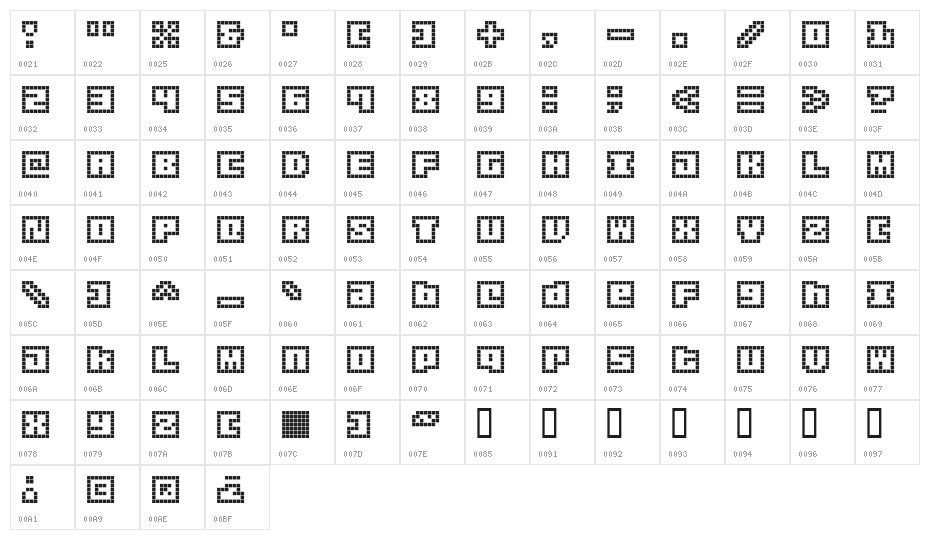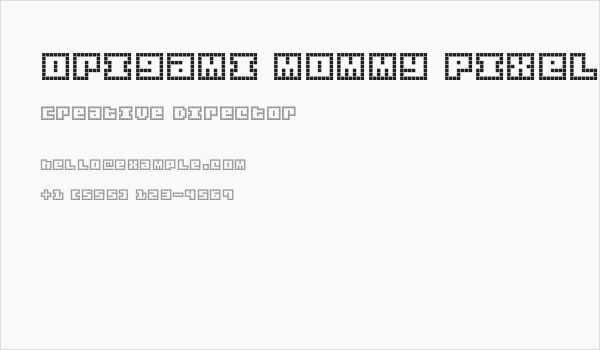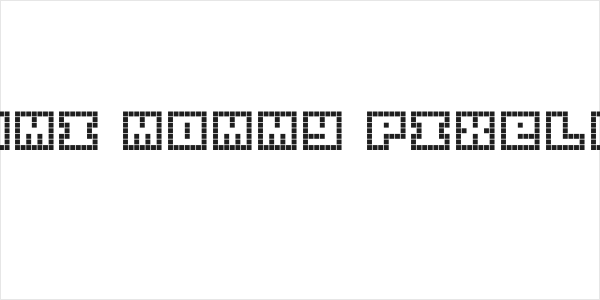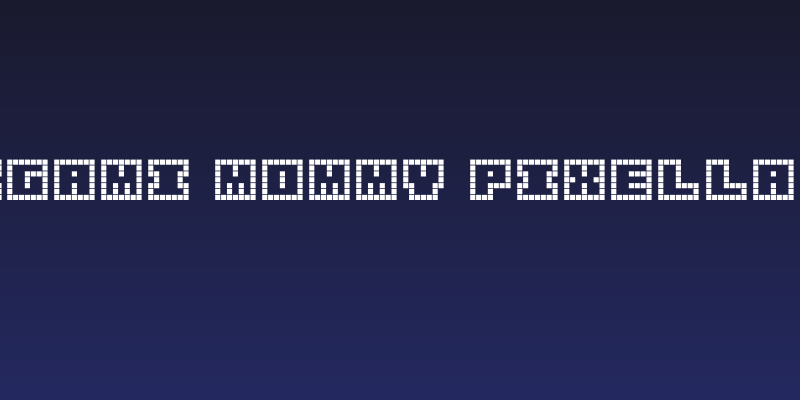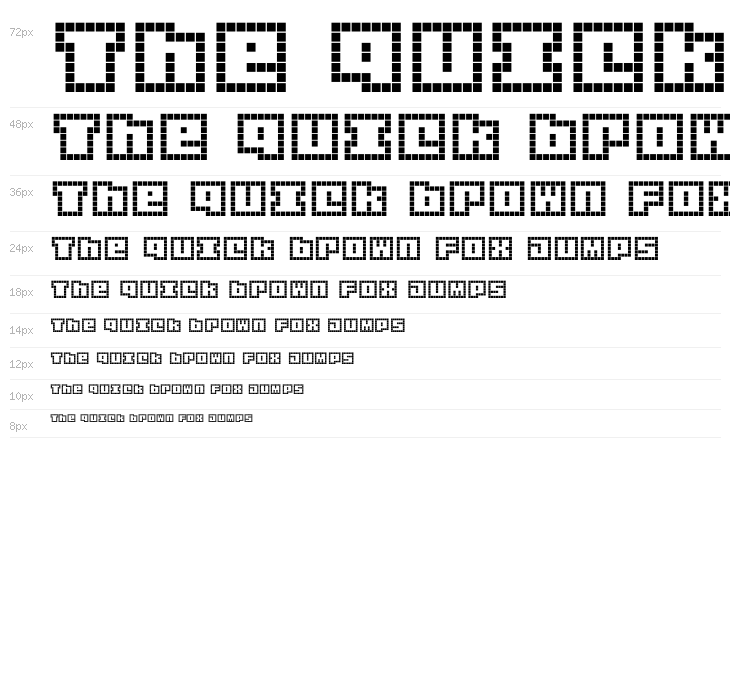
Origami Mommy Pixellated Font
Origami Mommy Pixellated Description
This font features a distinctive pixelated design, reminiscent of early digital displays and retro video games. Each character is composed of small, square blocks that form the overall shape of the letter or symbol, giving it a unique, digital aesthetic. The uniformity of the squares creates a consistent texture across all characters, while the blocky style ensures high legibility even at smaller sizes. This font's playful and nostalgic vibe makes it ideal for projects that aim to evoke a sense of fun or retro charm.
| Overall Style | Retro, Digital |
| Proposed Projects | Ideal for video game design, digital art projects, retro-themed posters, and creative branding. |